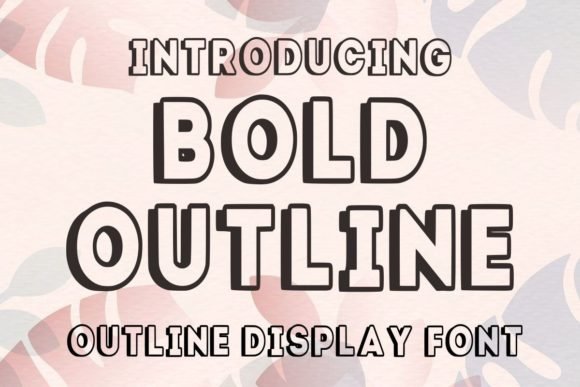
The Perfect Combination of Style and Readability
Have you ever found yourself staring at a blank canvas, waiting for the perfect font to bring your creative vision to life? It’s a moment we’ve all experienced at some point, and it’s precisely this moment that the Bold Outline Font is designed to capture.
Bold Outline Font is an adaptable display font that effortlessly combines style and readability, making it the perfect companion for any creative project. Whether you’re crafting handmade cards, designing digital art, or creating engaging presentations, this font is sure to elevate your work and leave a lasting impression. Its impeccable friendliness and easy-to-read design make it a valuable asset for designers of all levels.
Bold Outline Font Key Features
- Unique Characteristics: Features a distinctive bold outline design, ideal for creating striking headlines and titles
- Language Support: Supports multiple languages, including Latin, Cyrillic, and Greek scripts
- Font Weight: Available in bold, regular, and light weights for added versatility
- Kerning and Ligatures: Includes advanced kerning and ligature support for professional typography
Bold Outline Font Review
As a designer, I was excited to dive into the world of Bold Outline Font. Here’s my honest review.
- Unique style: Bold Outline Font offers a distinctive look that sets it apart from other fonts. Its bold, outlined aesthetic makes it perfect for headings and titles.
- Legibility: Despite its boldness, the font remains legible, even at smaller sizes.
- Customization options: The font comes in various weights and styles, giving designers plenty of flexibility to experiment with different looks.
- Limited font family: Bold Outline Font is a single font, which can limit its versatility in complex designs.
- Not ideal for body text: The font’s boldness can make it difficult to read for extended periods, especially in body text.
- May not be suitable for all industries: The font’s style may not be suitable for industries that require a more professional or conservative look.
Bold Outline Font is a great addition to any designer’s toolkit, especially for projects that require a bold, eye-catching look. While it may have some limitations, its unique style and customization options make it a valuable asset. With careful consideration of its limitations, designers can use Bold Outline Font to create stunning designs that stand out from the crowd.
The Bold Outline Font is commonly used for:
1. Creating eye-catching headlines and titles.
2. Adding a bold and modern touch to presentations and documents.
3. Highlighting important information and keywords.
Tips for Getting the Most Out of Bold Outline Font
1. Experiment with different font sizes and colors to create a bold and eye-catching effect.
2. Use the Bold Outline Font in combination with other design elements to create a cohesive and modern
Alternatives to Bold Outline Font
1. Drop Shadow Font
Drop Shadow Font creates a subtle shadow effect around the text, giving it a sense of depth. It’s ideal for use in headings, titles, and other prominent text elements. Unlike Bold Outline Font, which creates a bold, outlined look, Drop Shadow Font adds a more nuanced, atmospheric effect.
2. Neon Font
Neon Font is a highly stylized font that mimics the glow of neon signs. It’s perfect for use in futuristic, high-tech, or neon-lit designs. While Bold Outline Font is more versatile, Neon Font is more suited for specific design themes and styles.
Q: Are there any limitations to using Bold Outline Font?